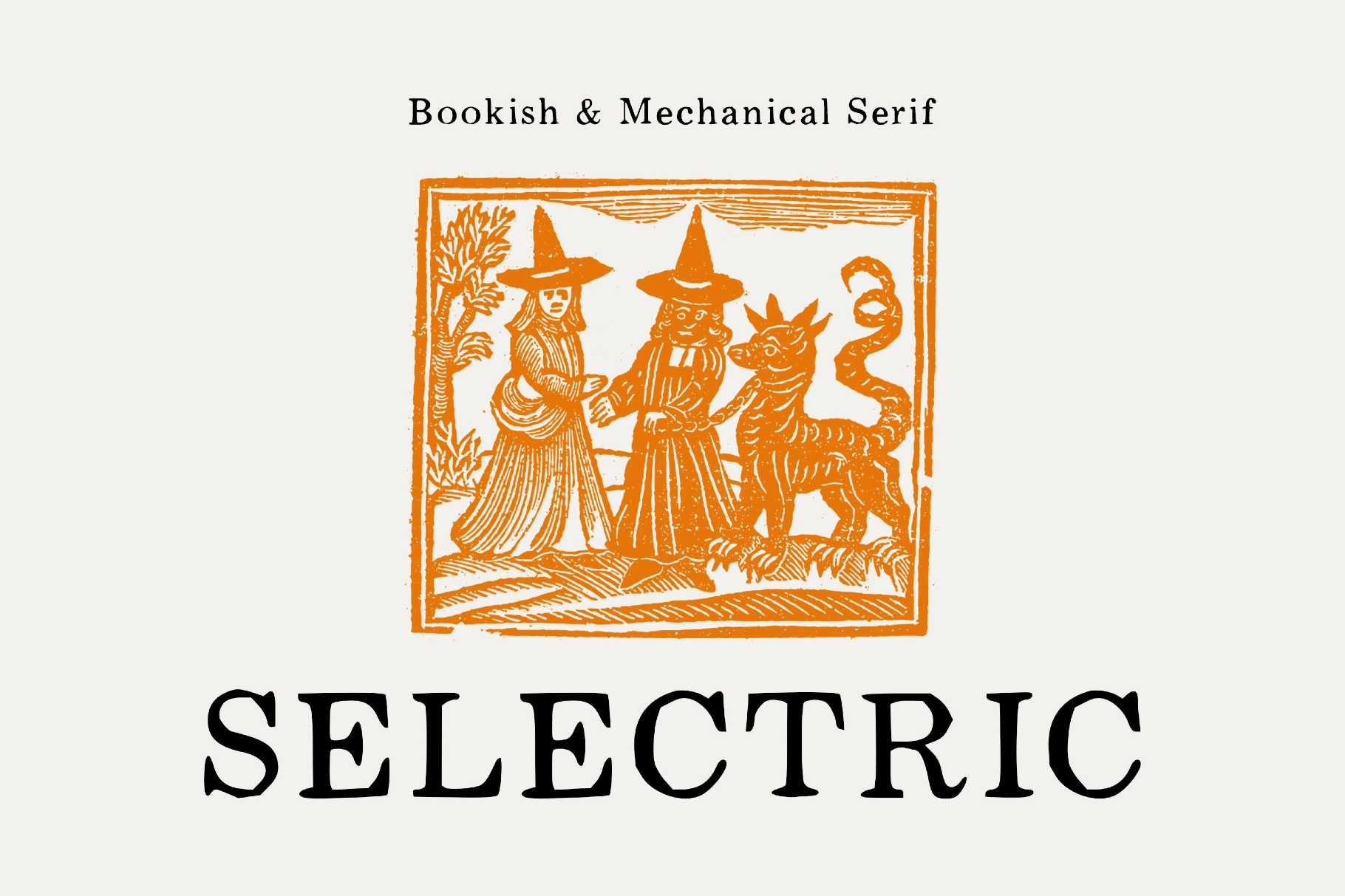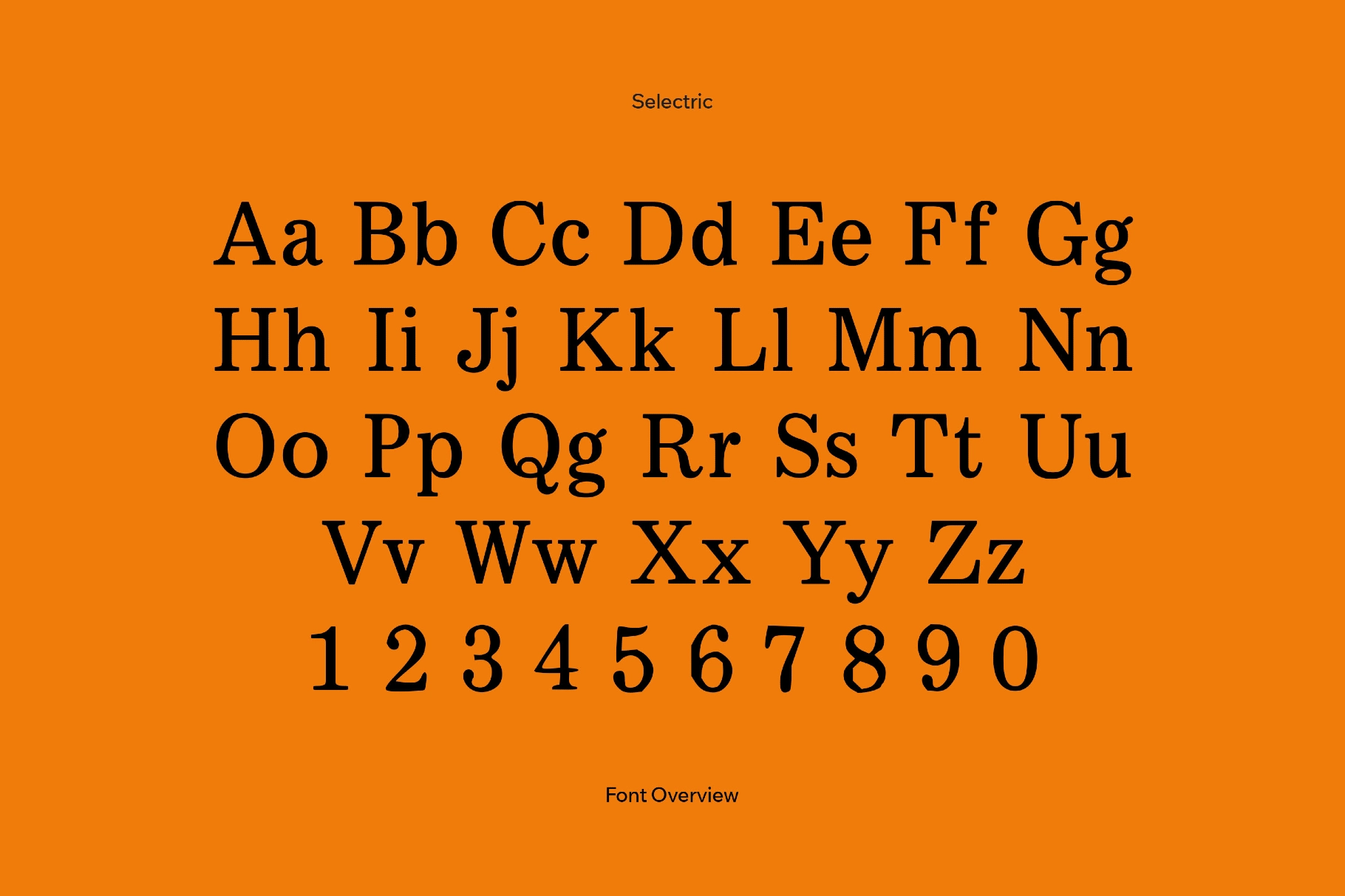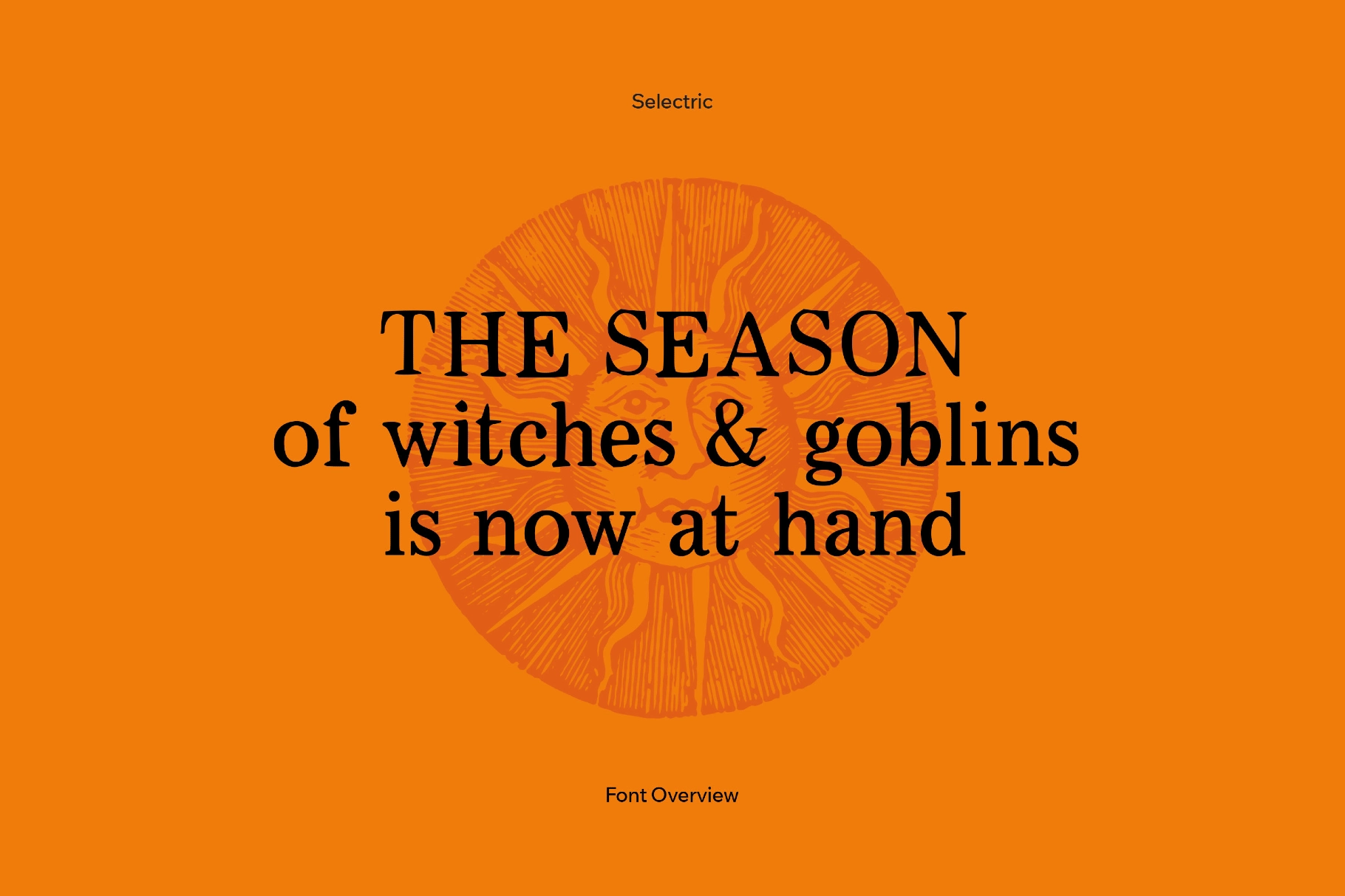
Selectric
Selectric is a bookish, slightly mechanical serif — think office typewriters refined for print. Rounded wedges, softly swelling strokes, and a touch of asymmetry in the curves give it personality. The rhythm stays steady line after line, so the text retains enough weight and contrast to hold its own in display sizes.
Use it for literary book jackets, period-drama posters and credits, editorial mastheads, museum guides, exhibit labels, stationery suites, and invitations. It also works well for boutique packaging with provenance cues, café menu, table cards, podcast/YouTube title cards, brand wordmarks, and data sheets.